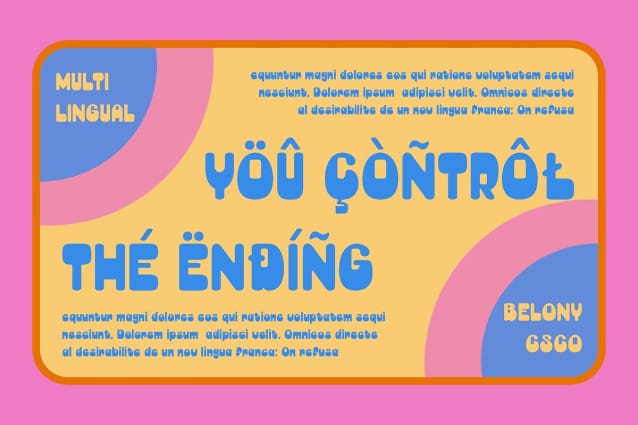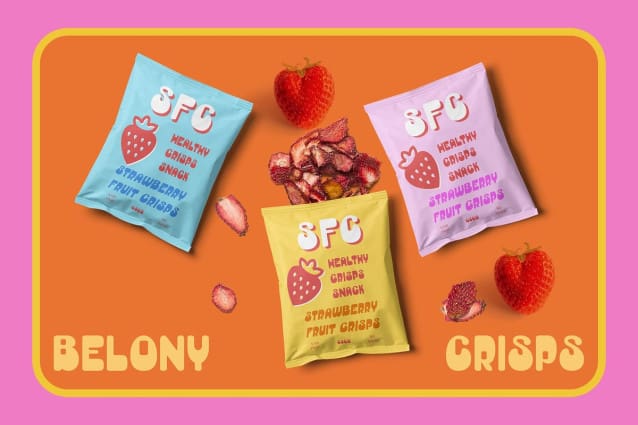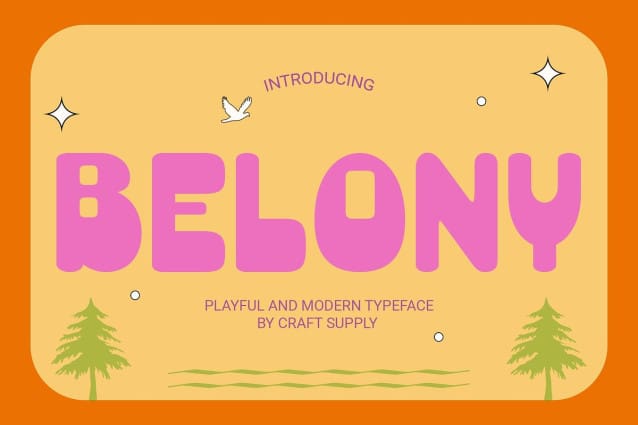
Belony Display Font
Belony Display Font : Fun and Bold Sans Serif Display Font. Playful Balloon-inspired Design Belony Display Font features a bold sans serif style, drawing inspiration from playful balloons. Its groovy, rounded shapes evoke a sense of whimsy and cheerfulness, perfect for children’s designs.
Eye-catching and Vibrant With its bold and vibrant appearance, This font commands attention wherever it’s used. The dynamic shapes and lively curves make it an ideal choice for capturing the imagination of young audiences.
Versatile Application for Kids’ Projects Tailored for children’s projects, This font excels in a variety of applications, including book covers, posters, and educational materials. Its boldness and readability ensure clear communication in any context.
Bringing Joy to Design This font injects joy and personality into design projects with its lively, balloon-inspired aesthetic. Whether used in print or digital media, it adds a playful touch that resonates with kids and adults alike.
Where Fun Meets Boldness This font is more than just a font; it’s a celebration of creativity and imagination. With its bold sans serif design and groovy balloon-inspired shapes, it brings a sense of fun and vibrancy to children’s projects, making every design a delightful adventure.